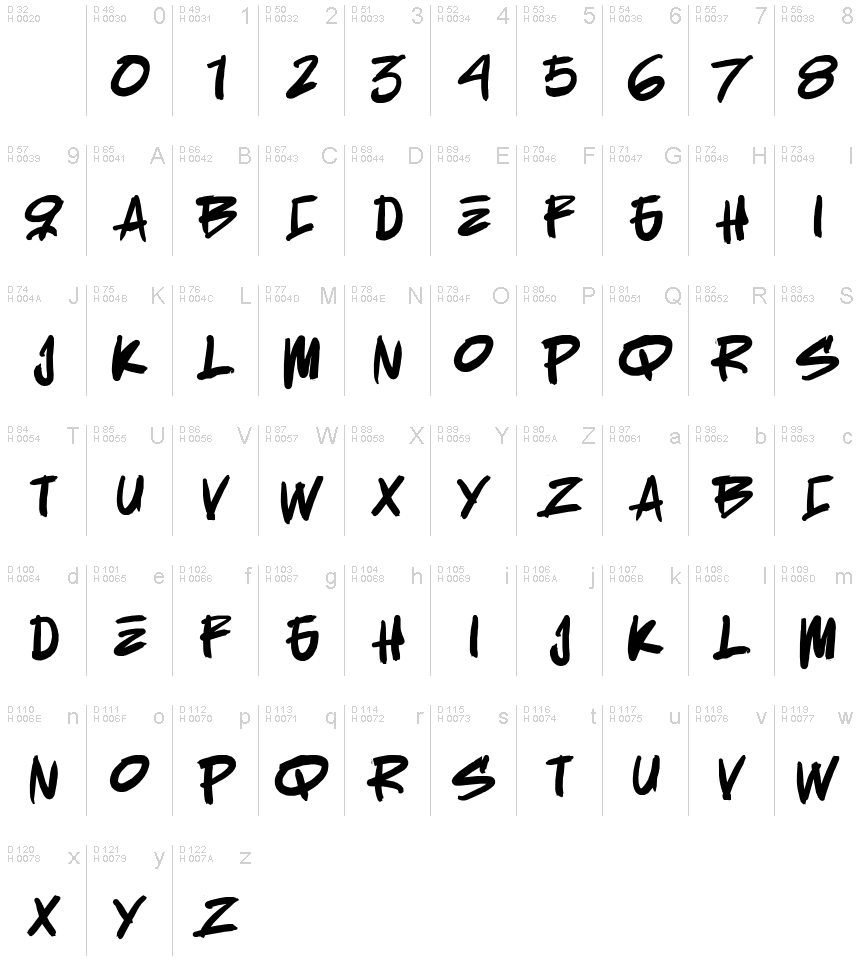
BIGHUGE
Bighuge, crafted by Selawetype, exudes a bold brush style that captures the vivacity and expressiveness of hand-painted lettering. The strokes are confident and powerful, imbued with an organic texture that brings each character to life. This font stands out for its robust flair and dynamic flow, making a striking visual impact.
Its artistic charm lends itself beautifully to creative projects where personality and energy are paramount. From captivating branding materials to eye-catching posters, Bighuge is ideal for designs that require a touch of human warmth and a strong presence.